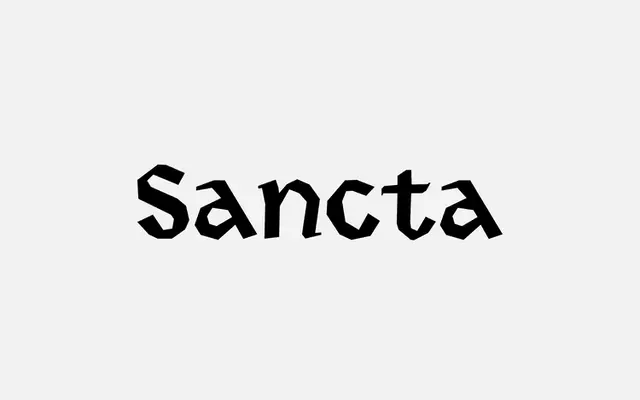
A geometric Celtic display font drawing on Gaelic calligraphic tradition with clean lines and sharp corners.
Built around the visual language of Gaelic calligraphy, Sancta trades in the rounded warmth of traditional uncials for a sharper, more geometric approach. The result is a Celtic display face that reads as contemporary rather than antiquarian, suited to headings, packaging and branding where a legible nod to Celtic heritage is wanted. Sold as a single OTF file at a low price point, it is a compact, single-purpose offering.
Sancta is a display typeface drawing on Gaelic calligraphic traditions, with geometric interpretations of uncial letterforms. Its Celtic heritage and decorative intent place it firmly in display rather than text use.